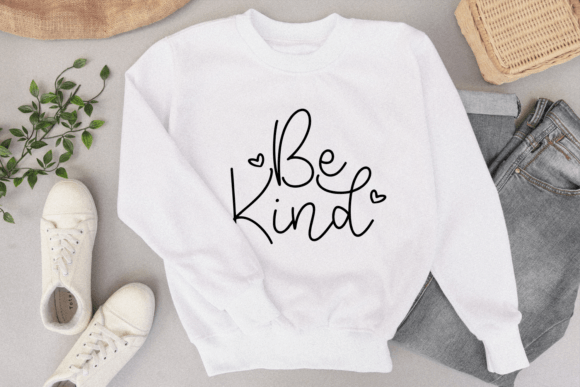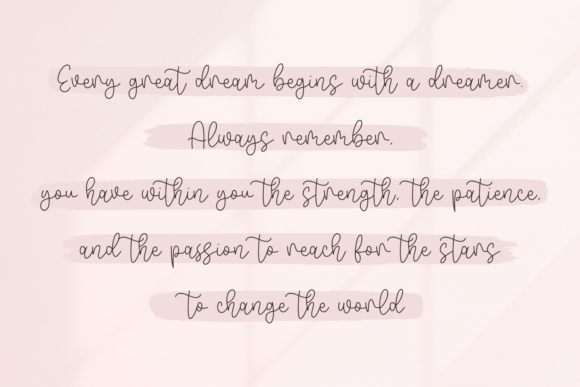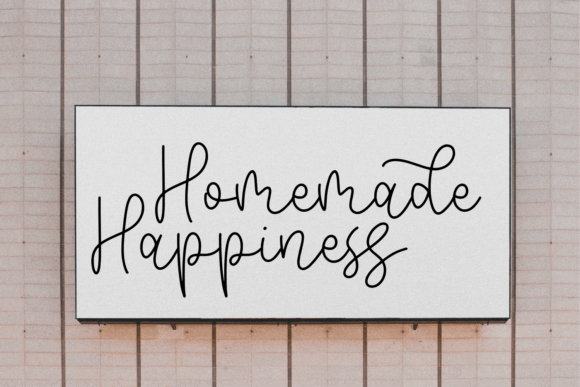
Introduction to Mells Butter Font
Mells Butter is a flowing handwritten font, described by an elegant touch, perfect for your favorite projects.
Key Features of Mells Butter Font
Why Choose Mells Butter Font?
Mells Butter Font offers exceptional quality and versatility, making it a valuable addition to your design toolkit. Whether you’re creating for personal projects or commercial use, Mells Butter Font delivers professional results.